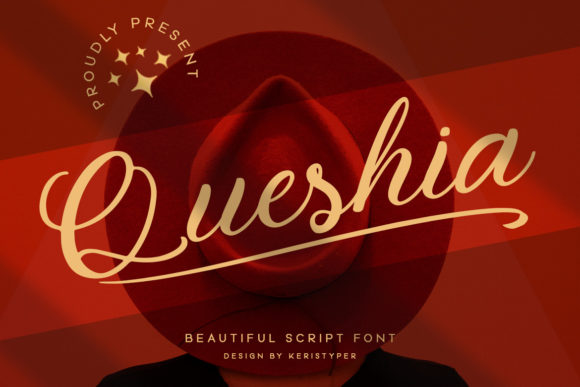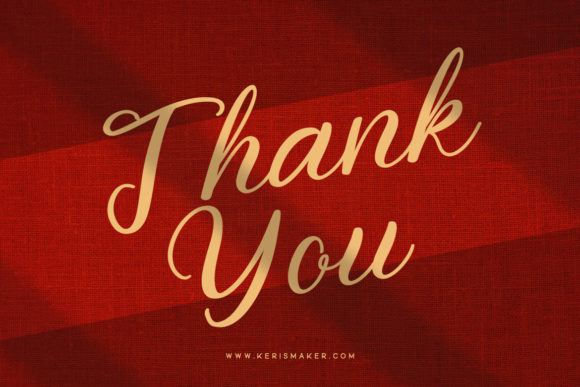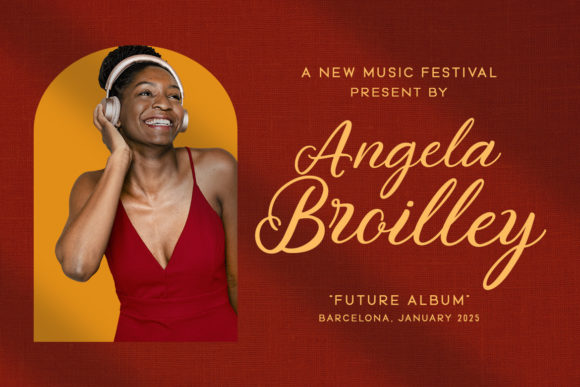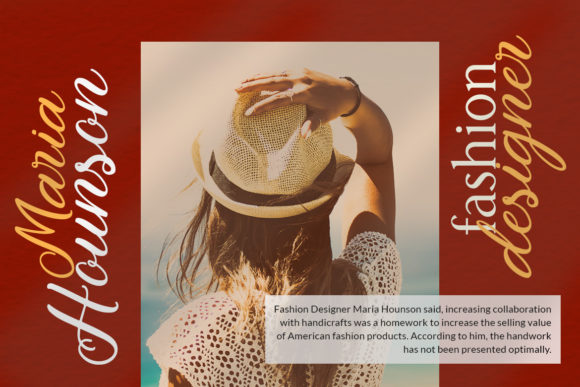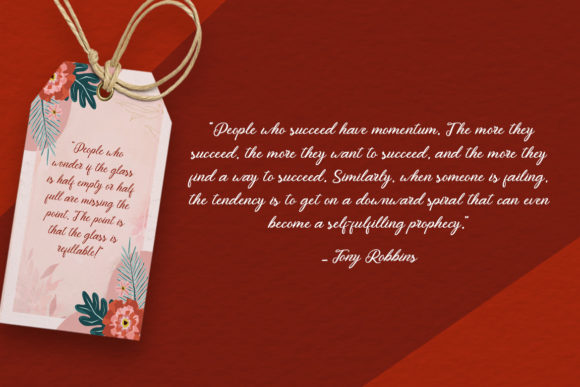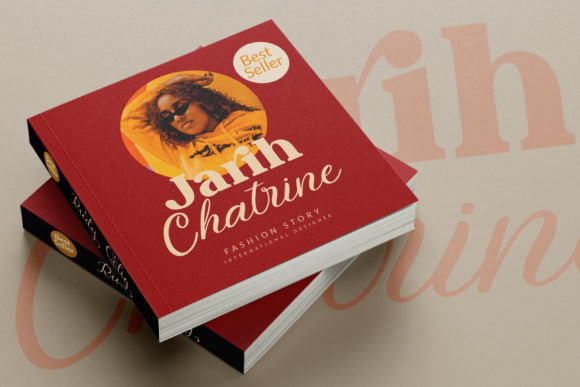
Queshia Font
About Queshia Font
Queshia is a beautiful script designed to made your projects look gorgeous. It looks stunning on wedding invitations, thank you cards, quotes, greeting cards, logos, business cards and every other design which needs a customized touch.